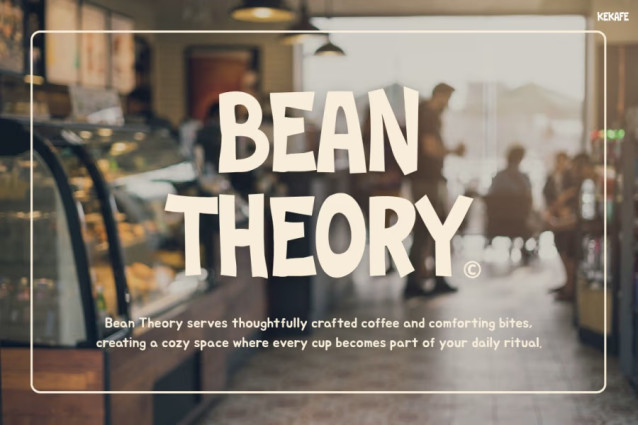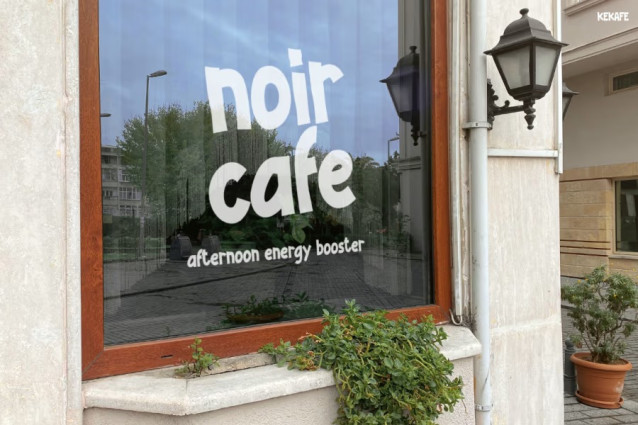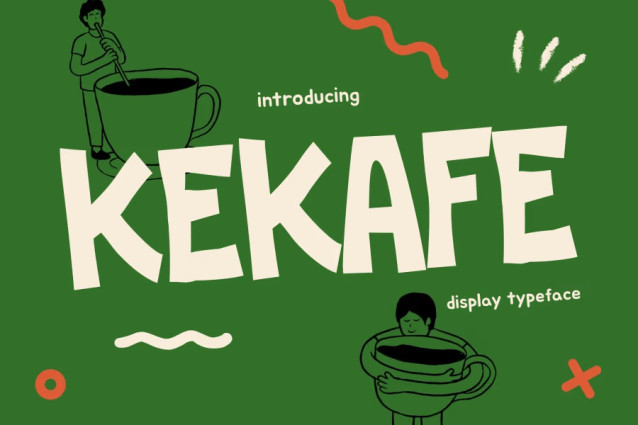
Kekafe Font
Kekafe Font is a uniquely warm and charming typeface inspired by the inviting aesthetics of modern coffee shops. From the very first glance, it feels comforting—much like a fresh cup of your favorite brew. Moreover, its rounded shapes, playful strokes, and soft handwritten look make it instantly recognizable and emotionally engaging. KEKAFE blends handcrafted personality with clean readability, therefore giving every word a friendly and approachable vibe. Because of its subtle imperfections and carefully crafted curves, the font delivers an authentic café atmosphere that feels both stylish and relaxing.
KEKAFE’s design is extremely versatile, and, as such, it adapts easily to various visual styles. It works beautifully on café menus, coffee packaging, product labels, storytelling graphics, lifestyle content, posters, and Instagram visuals. Additionally, its playful curves and modern handwritten energy make it ideal for food and beverage branding, cozy lifestyle quotes, and small-business marketing materials.
Because KEKAFE remains clear and readable, even at smaller sizes, it enhances both digital and print designs effortlessly. In addition, its soft motion and clean thickness control ensure that every message feels expressive yet stable. Therefore, if you want your text to feel warm, organic, and instantly recognizable, this font consistently delivers.
Perfect For
• Coffee shops, cafés, and small restaurants
• Branding designers who want friendly personality
• Instagram creators seeking warm, aesthetic visuals
• Packaging designers for food, drinks, and handmade goods
• Lifestyle bloggers and business owners
• Merch designers, menu creators, and poster makers
• Anyone who wants a cozy, handcrafted, stylish look
Closing Statement
Ultimately, Instagram Font KEKAFE is more than just a font—it is a mood, a story, and a visual identity. Its welcoming strokes, handcrafted charm, and café-inspired personality help every project feel more human and memorable. Therefore, if you want a typeface that truly stands out while creating emotional connection, KEKAFE is the perfect choice. Bring warmth, character, and aesthetic impact to your brand today.